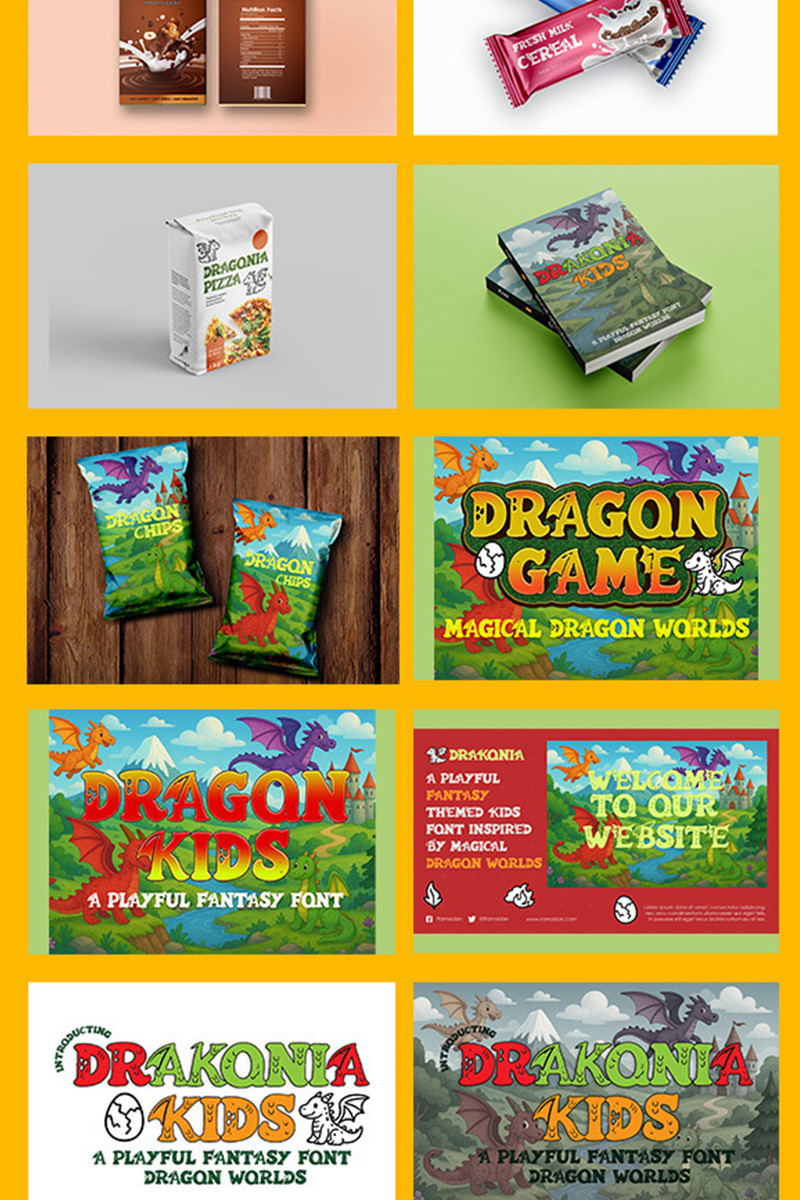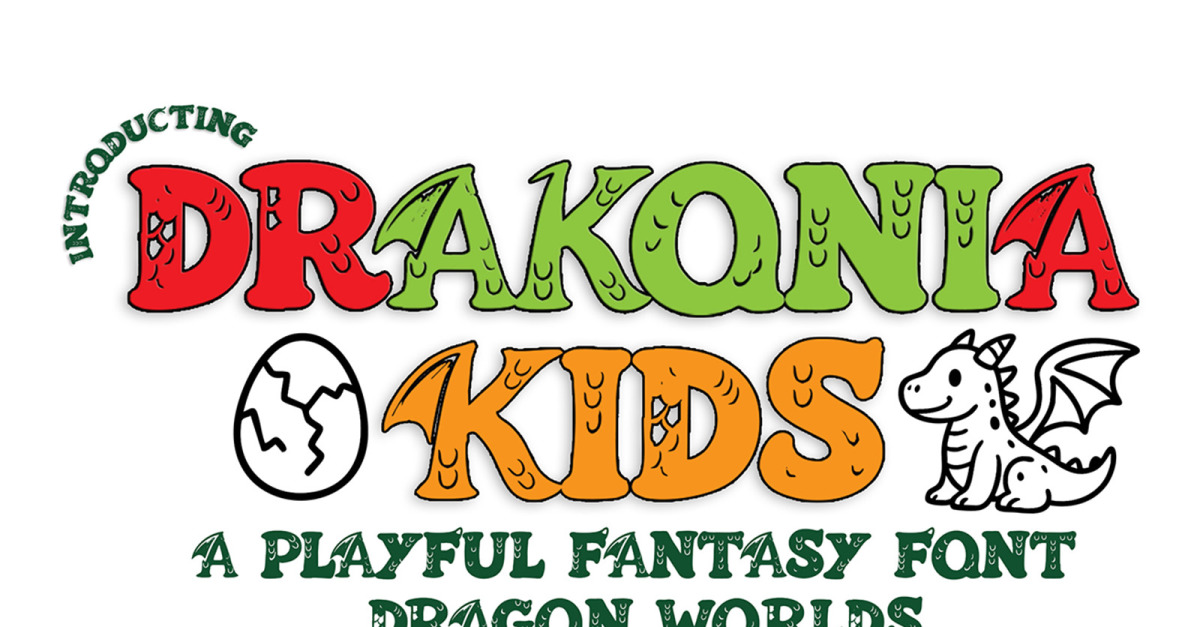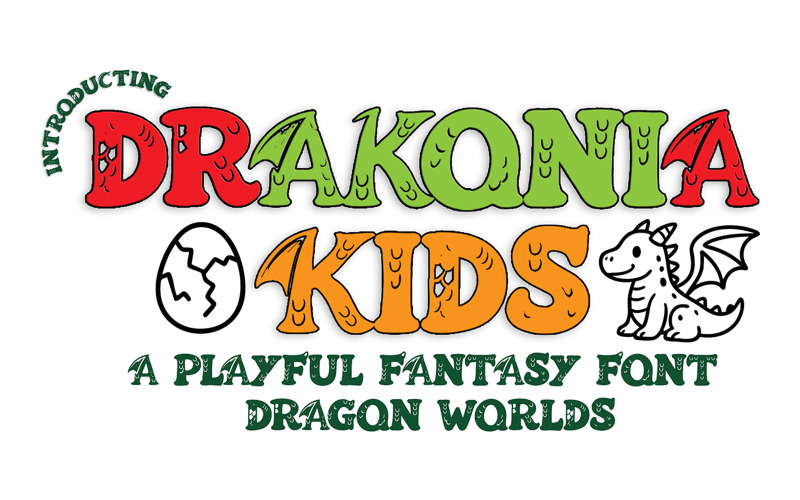
Drakonia Fantasy Kids Font
Drakonia Kids is a playful fantasy-themed kids’ font inspired by magical dragon worlds. Perfect for storybooks, games, logos, crafts, classroom fun and creative learning materials.